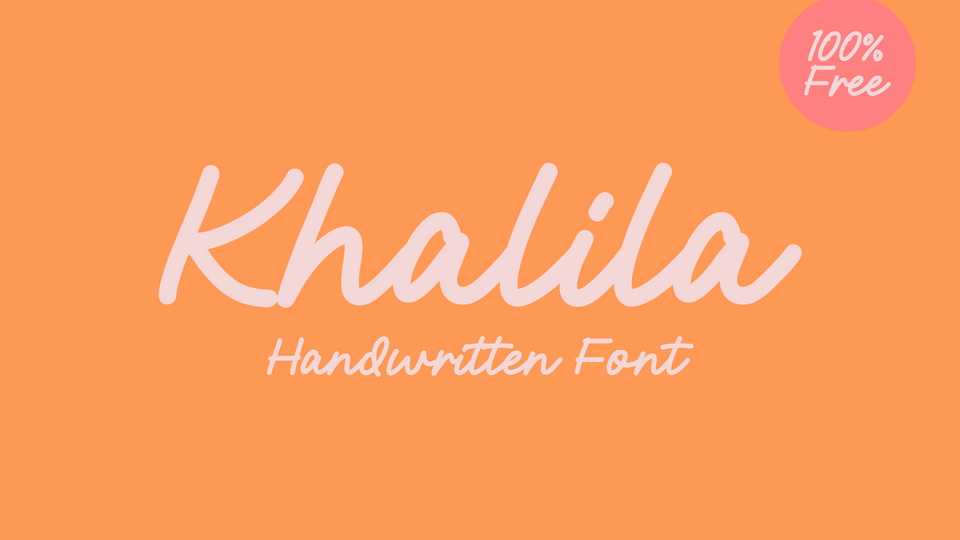
Download Khalila font a simple and delicate handwritten font that exudes elegance. Khalila font was particularly crafted for those who need a natural look to their designs.
Designer: Zuzulgo Studio